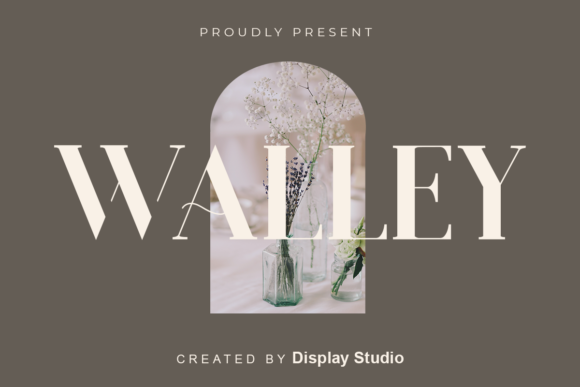
Prepare yourself to be mesmerized by Walley Font, a visionary serif font family that will captivate your creative endeavors. This modern and sleek masterpiece is meticulously crafted to be the perfect companion for a wide array of projects, ranging from brand logos that exude professionalism to heartfelt invitations and enchanting greeting cards. Allow this font to be your muse as you embark on a creative journey, leaving an indelible mark with every stroke.
With Walley Font, the possibilities are limitless. Elevate your designs to new heights with its crisp, clean lines that command attention and convey a sense of sophistication. This font is a true chameleon, effortlessly adapting to any style or theme, whether you're aiming for a classic, timeless look or a contemporary, cutting-edge aesthetic. Its multilingual features open up a world of opportunities, allowing you to communicate with a global audience in their native tongue.
Unleash your creativity with Walley Font's captivating style variations. Experiment with different weights and glyphs to achieve a look that perfectly aligns with your vision. Add a touch of elegance with delicate swashes or opt for a bold and impactful statement. The PUA encoding makes accessing these special characters a breeze, ensuring that you can effortlessly bring your creative ideas to life.
Don't settle for ordinary fonts that blend into the background. Choose Walley Font and make a statement that resonates with your audience. Its versatility and charm will leave a lasting impression, whether you're designing a logo that exudes strength and stability or crafting a wedding invitation that radiates romance and elegance. It's the perfect font to create designs that speak volumes and leave a lasting impact.